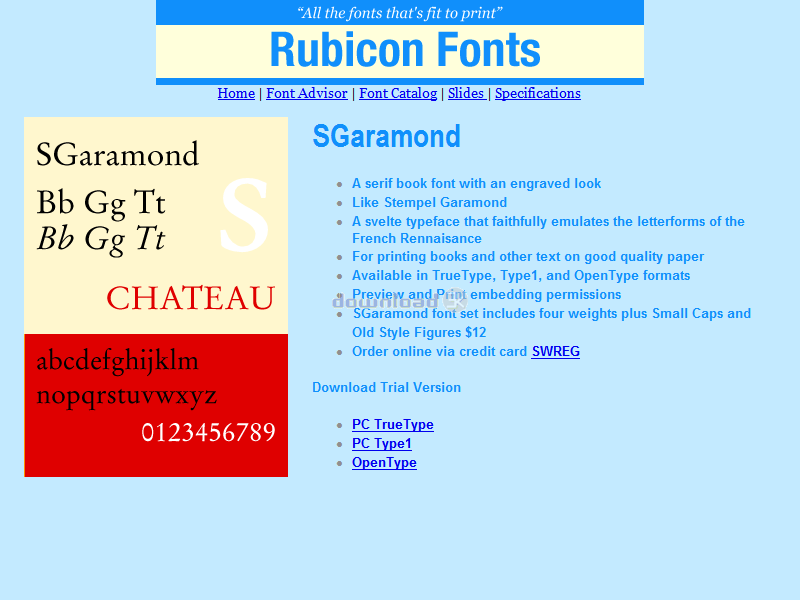
SGaramond Font Type1 2.00
"Serif book font, engraved look"
A serif book font with an engraved look. Like Stempel Garamond. A svelte typeface that faithfully emulates the letterforms of the French Renaissance. For printing books and other text on good quality paper. Recommended size 12 points. Accurate and hinted, matching font metrics, standard character set, kerning pairs. Professional print quality for inkjet, laser, typesetter to 3500 dpi. Purchasers receive 5 font variants as follows: Roman, Italic, Bold, Bold Italic, Small Caps and Old Style Figures.Requirements: Older versions of Windows require Adobe Type Manager.